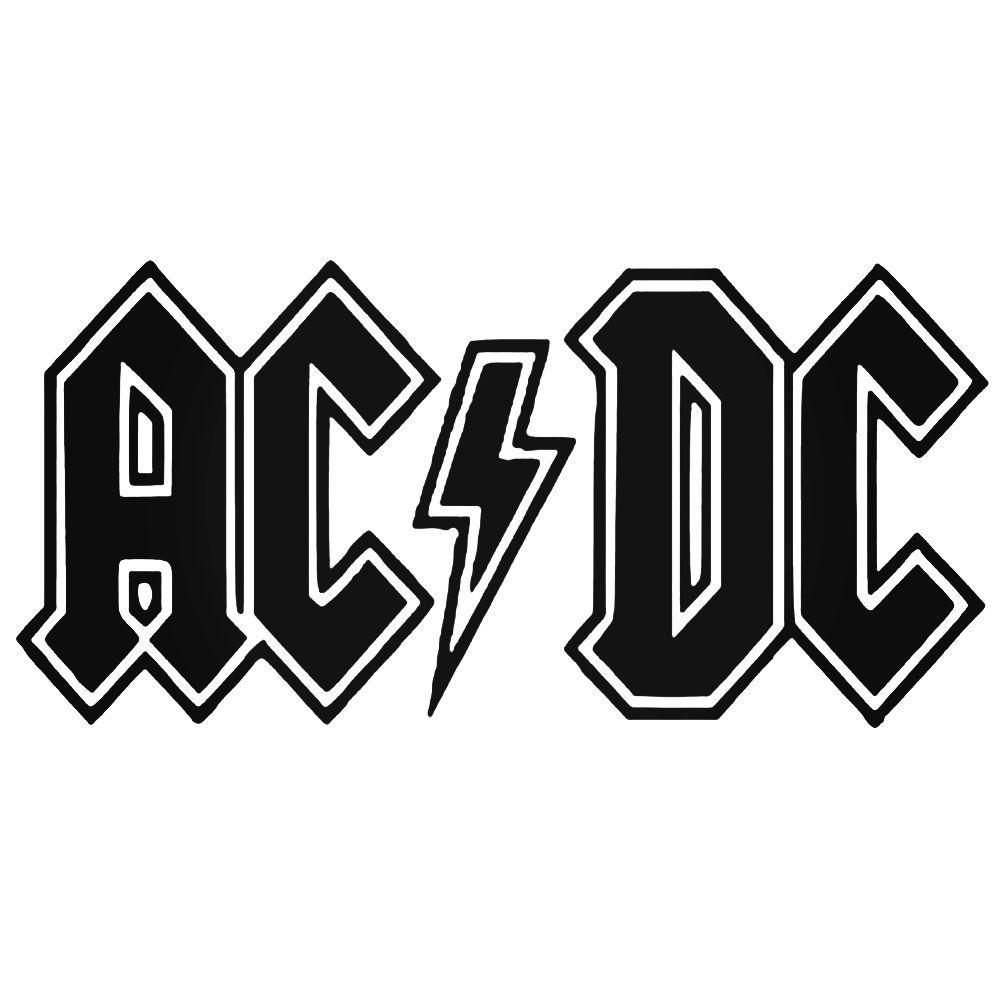
A similar font would be shatter. It is a free font. Ac/dc is an australian rock band formed in 1973 in sydney which is the most populous city in australia.
Ac/Dc Is A Hard Rock Band From Australia, Which Was Formed In November 1973.
The band was formed by malcolm and angus young, two scottish born brothers. Well, this ac dc logo font is not so available online. Squealer by larabie fonts is a font based on the logo from the music group ac/dc.
Or Maybe You Are Just A Fan Of The Ac Dc Font Style.
These professionally designed typefaces and fonts can significantly improve your design by simply included them in the project you are working on. Their music has been variously described as hard rock, blues rock, and heavy metal, but the band themselves call it simply. The logo was designed by gerard huerta in 1977 and it features the ac dc text in blackletter with a lightning symbol in the center.